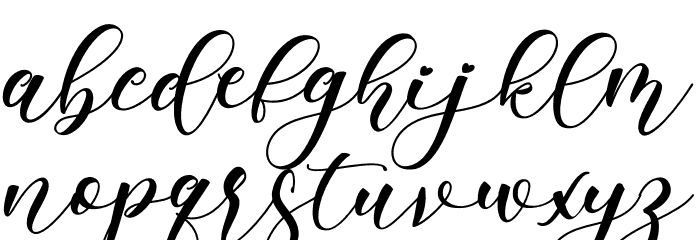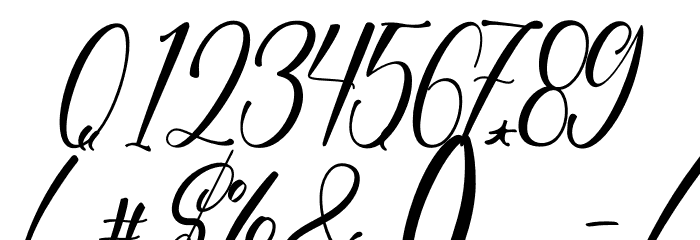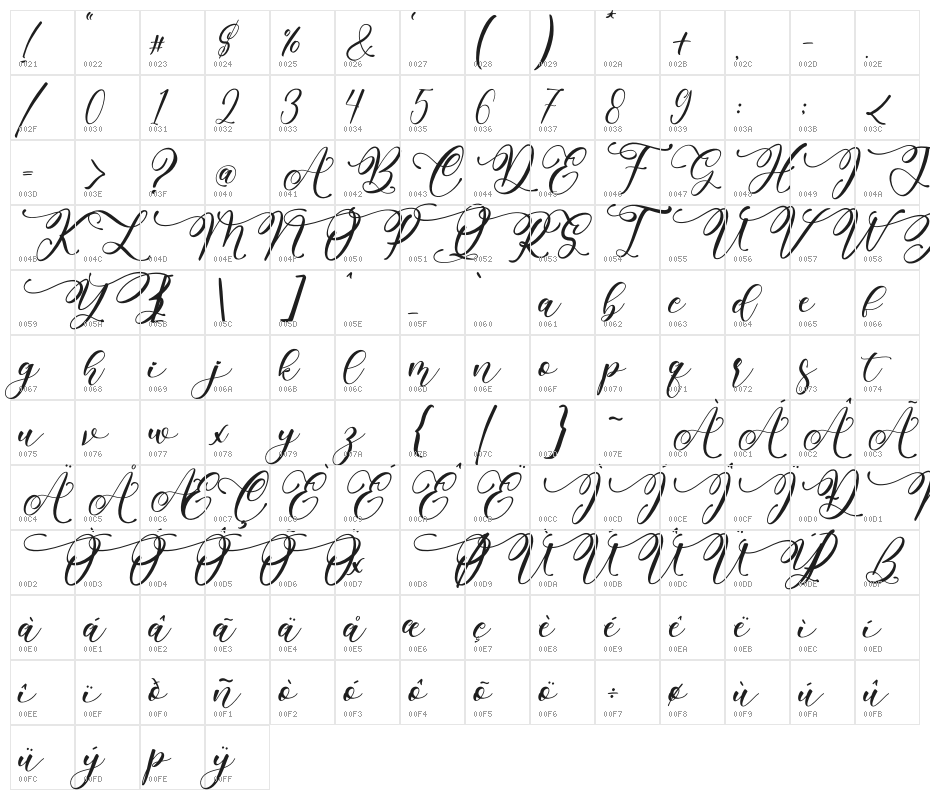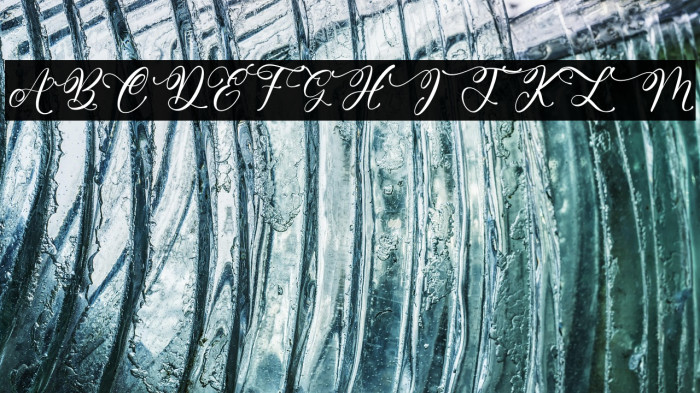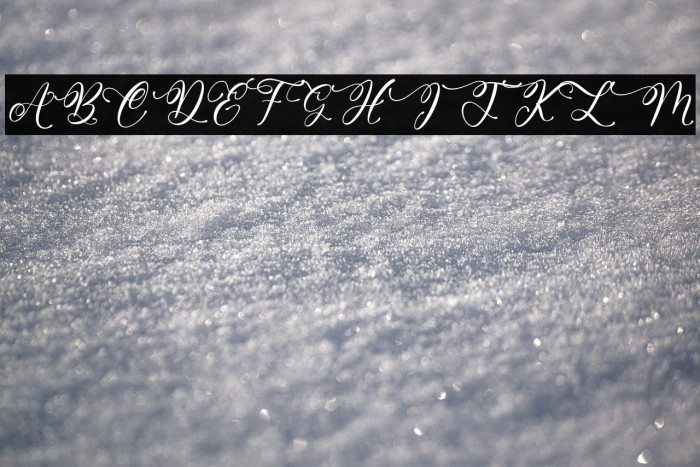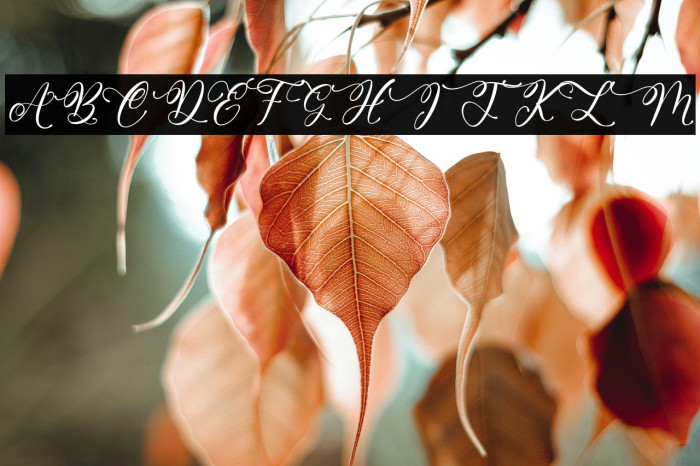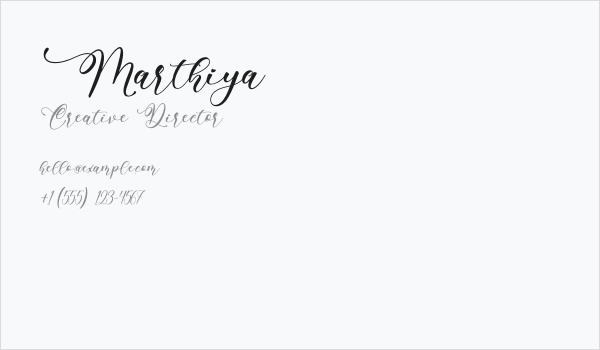
Marthiya Font
This elegant script font features flowing, interconnected letters with a sophisticated and artistic flair. The uppercase letters are adorned with delicate swashes, adding a touch of elegance and movement. The lowercase letters maintain a consistent style, with smooth curves and a graceful appearance. The numerals are designed to complement the overall aesthetic, featuring similar flowing lines and a harmonious balance. Special characters are thoughtfully integrated, maintaining the font's cohesive and stylish look. This font exudes a sense of luxury and refinement, making it ideal for projects that require a touch of class and sophistication.
A graceful and elegant script font with flowing, interconnected letters and artistic swashes.
- Font: Marthiya
- Proposed Projects: Ideal for wedding invitations, luxury branding, elegant stationery, and high-end product packaging.
- Category: Script
- Overall Style: Elegant
- Use Case: Logos, Invitations, Branding